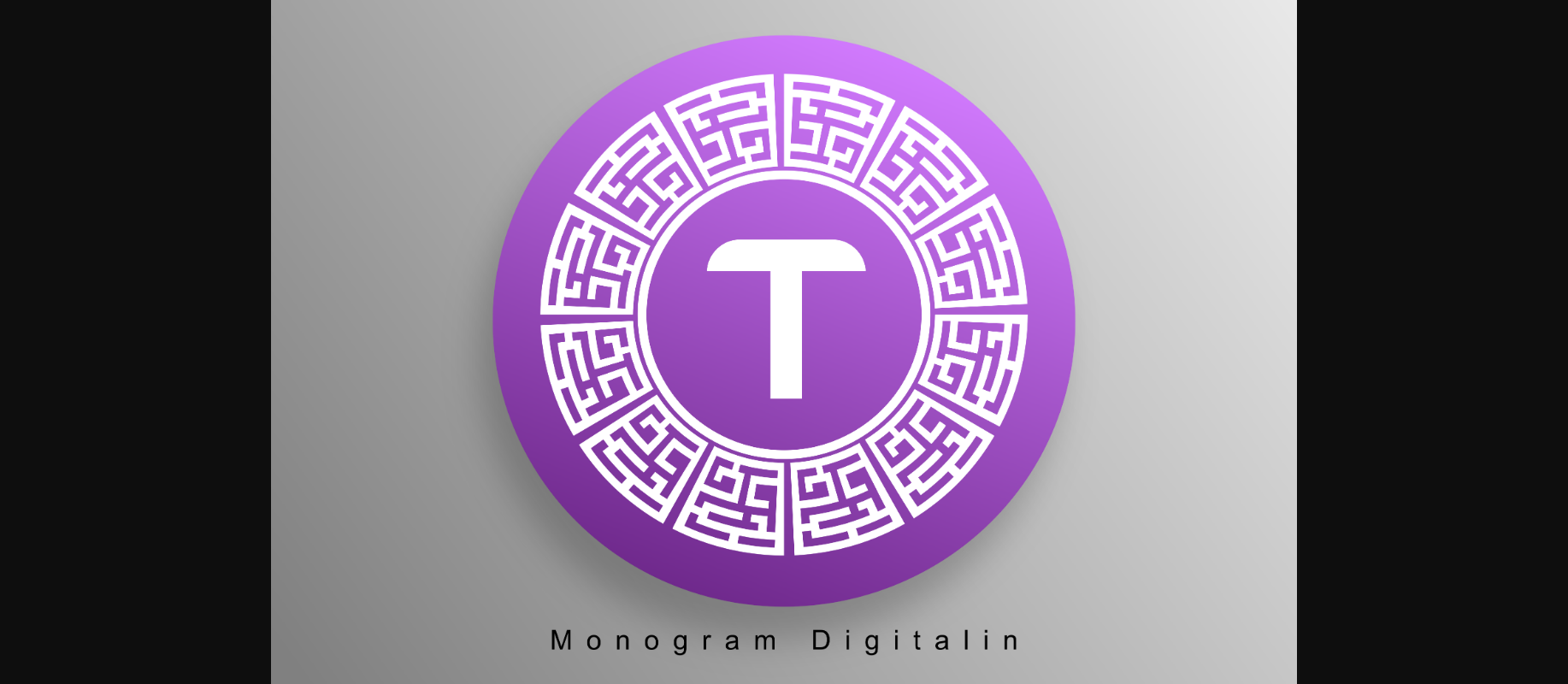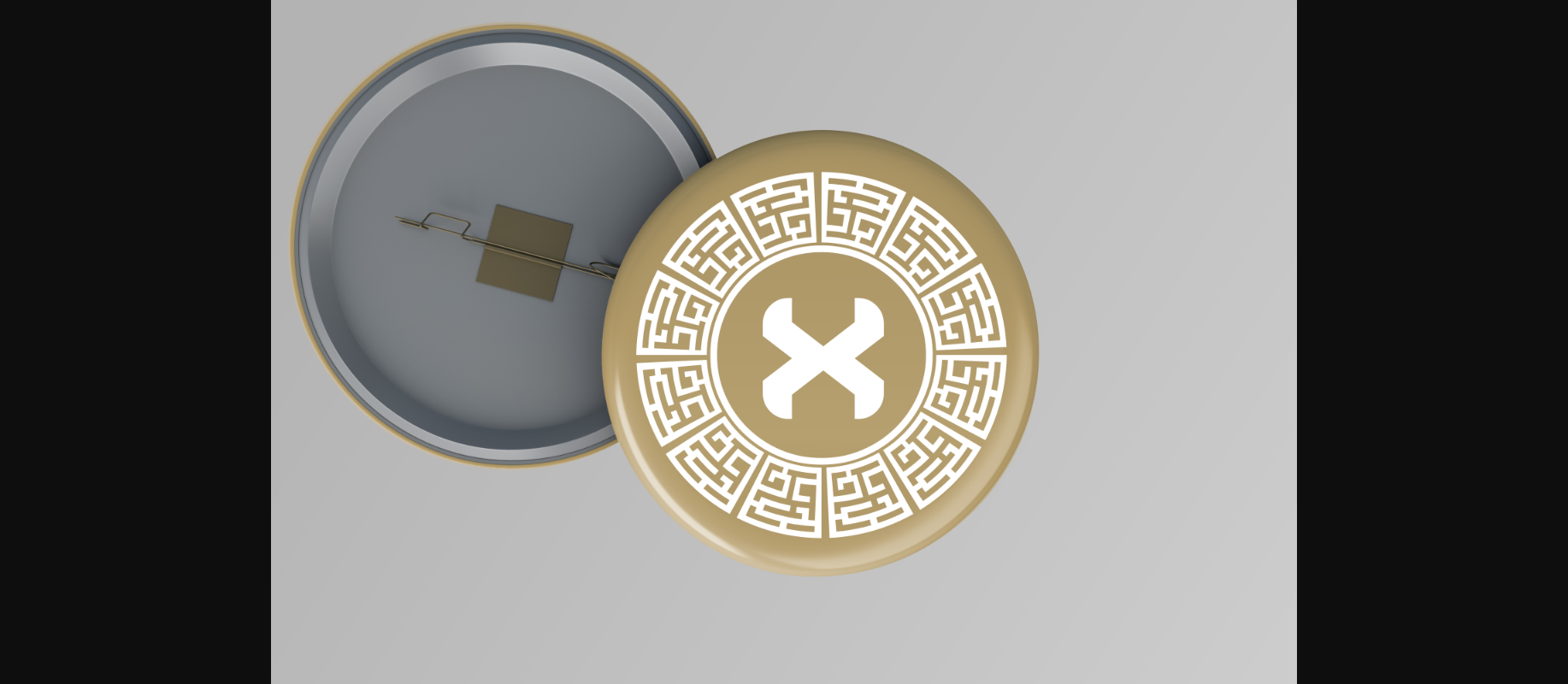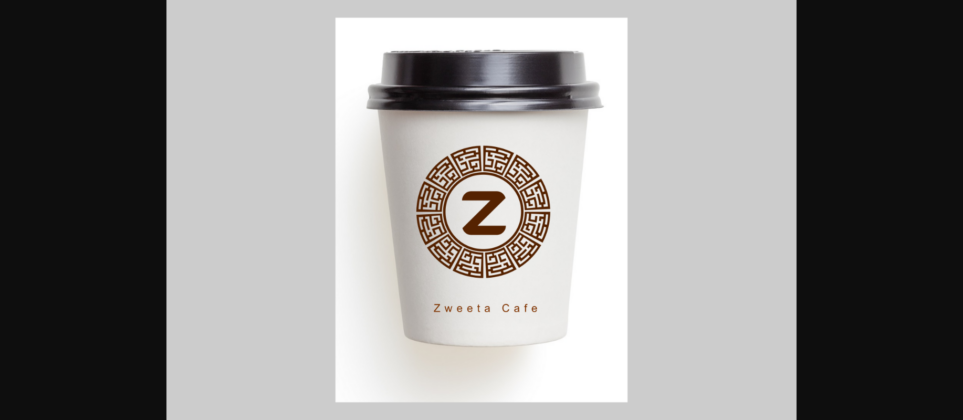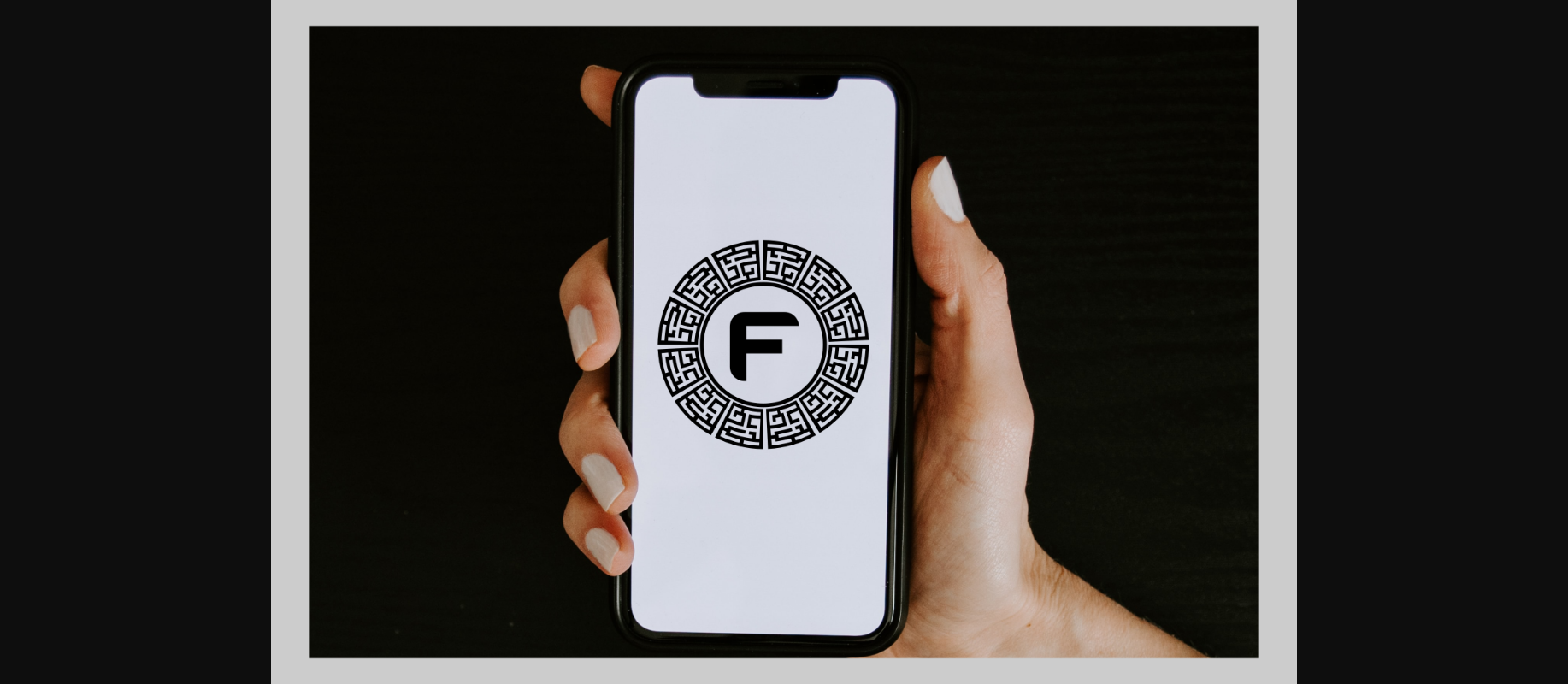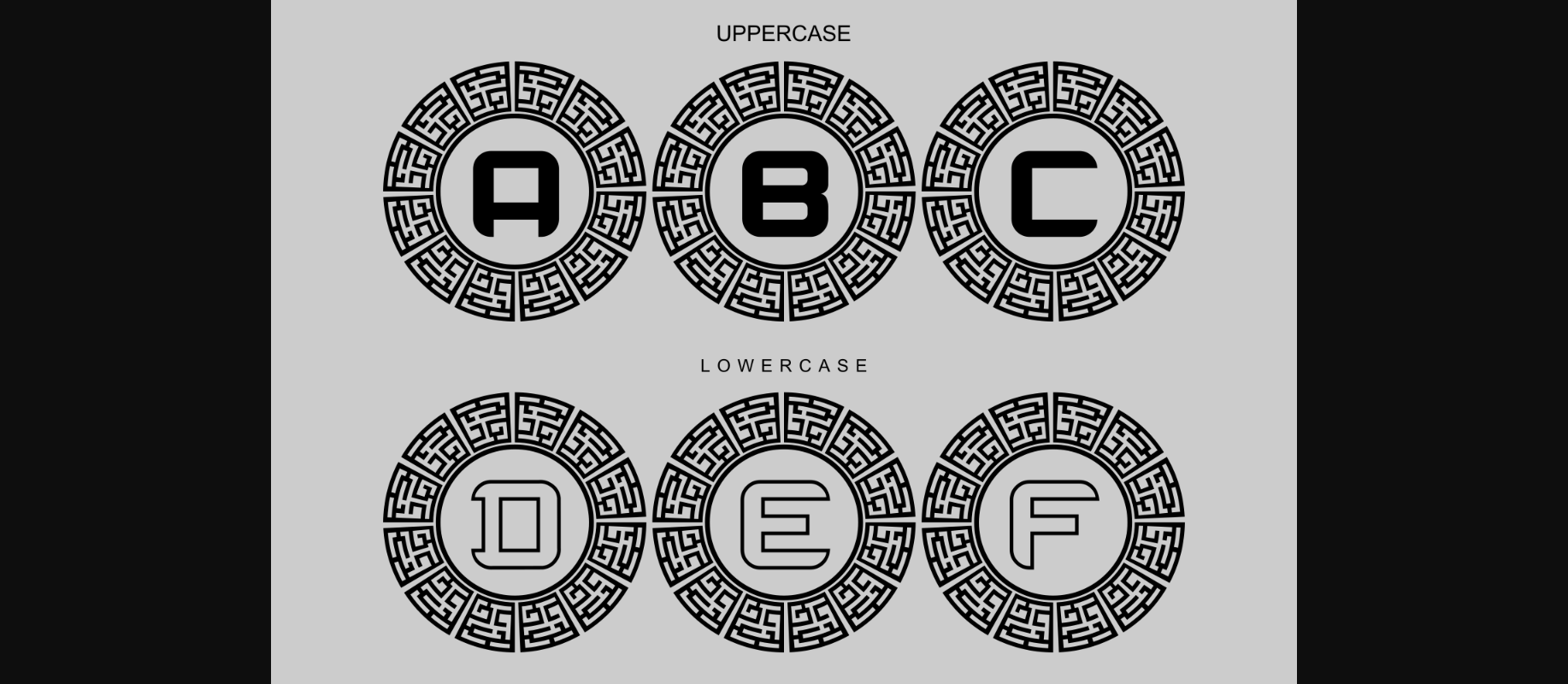
HomeDecorative FontsMonogram Digitalin Font Decorative Fonts Monogram Digitalin Font FacebookXPinterestWhatsApp 1 of 7 ... Monogram Digitalin Font Poster 2... Monogram Digitalin Font Poster 3... Monogram Digitalin Font Poster 4... Monogram Digitalin Font Poster 5... Monogram Digitalin Font Poster 6... Monogram Digitalin Font Poster 7... About Monogram Digitalin Font Monogram Digitalin is a highly detailed and beautiful decorative font. Add this lovely-looking font to each of your love letters, wedding invitations, or favorite design ideas, and you will be astounded by the outcome. DOWNLOAD NOW People also explored Gasoline Serif BTN Alexandera Font Mokutton Font Amsterdam Font Nature Font Smartwork Font Gtek Minimal Font ZP Love Branch Font Romantic Rhapsody 273 0 TagsMonogram Digitalin Font Previous articleMonogram Digitalic FontNext articleMonogram Digitech Font LEAVE A REPLY Cancel reply Comment: Please enter your comment! Name:* Please enter your name here Email:* You have entered an incorrect email address! Please enter your email address here Website: Save my name, email, and website in this browser for the next time I comment. Personal Use Free The Kingdom Personal Use Free Read more about this font Leorio Personal Use Free Read more about this font Makeba Font Personal Use Free Read more about this font Cottage Personal Use Free Read more about this font BLOG 5 Fonts That Will Dominate Design Trends in 2026 5 Fonts for 2026 That Will Dominate Design Trends Typography plays a critical role in visual communication, and as we look ahead to 2026, it’s... Best Fonts for T-Shirt Design – Top 2025 Picks How to Cut Any Font on Cricut: Convert a Font to SVG (Free) Where to Buy American Fonts Online in 2024